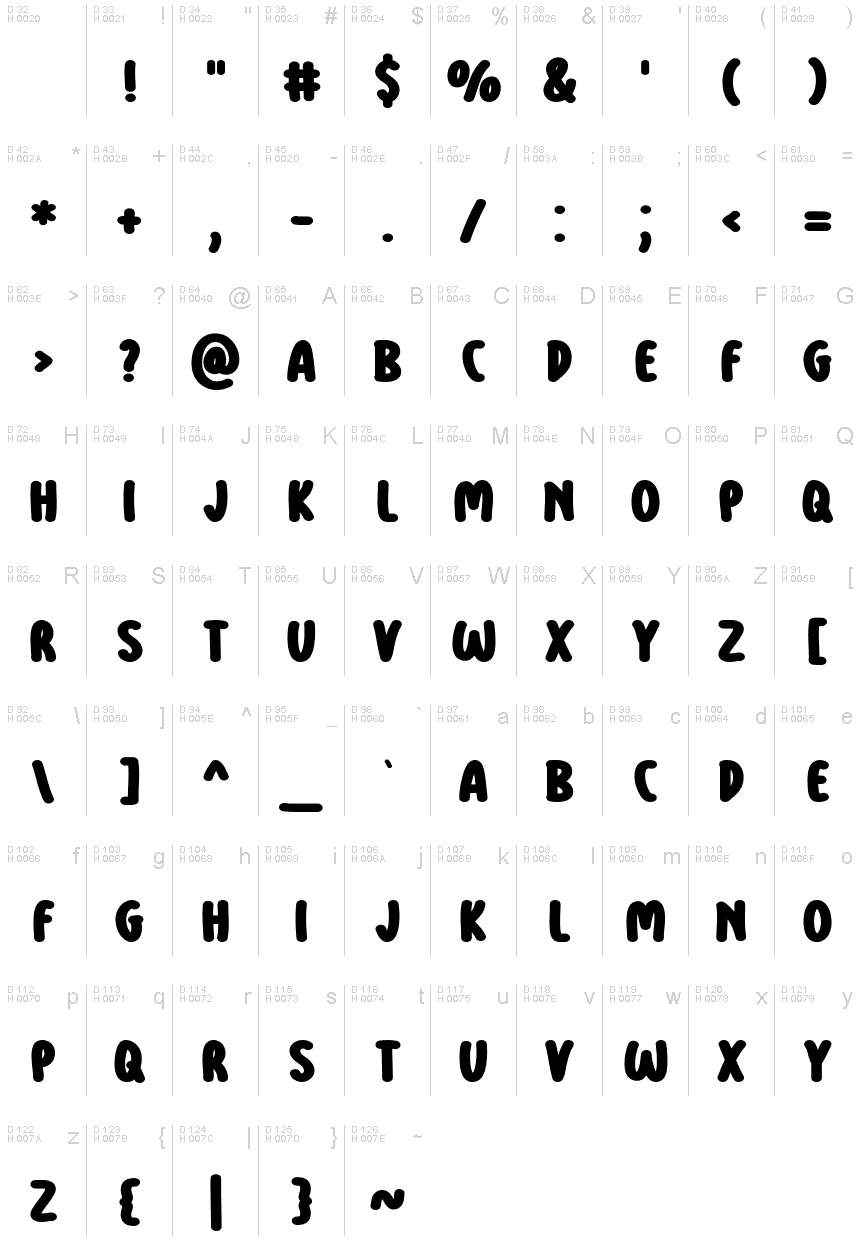
Food Zone
The Food Zone font by Md Shohail Bhuian is a playful and eye-catching display font, perfect for food-related projects. With its extra-bold weight and cartoon style, it's sure to grab attention and convey a fun, lighthearted tone. Use it for menus, recipe books, cooking blogs, or any project that needs a touch of whimsy. Its wide letterforms make it great for headlines and titles. Whether you're designing for a restaurant, catering company or food festival, the Food Zone font is the perfect choice to add some personality to your project.